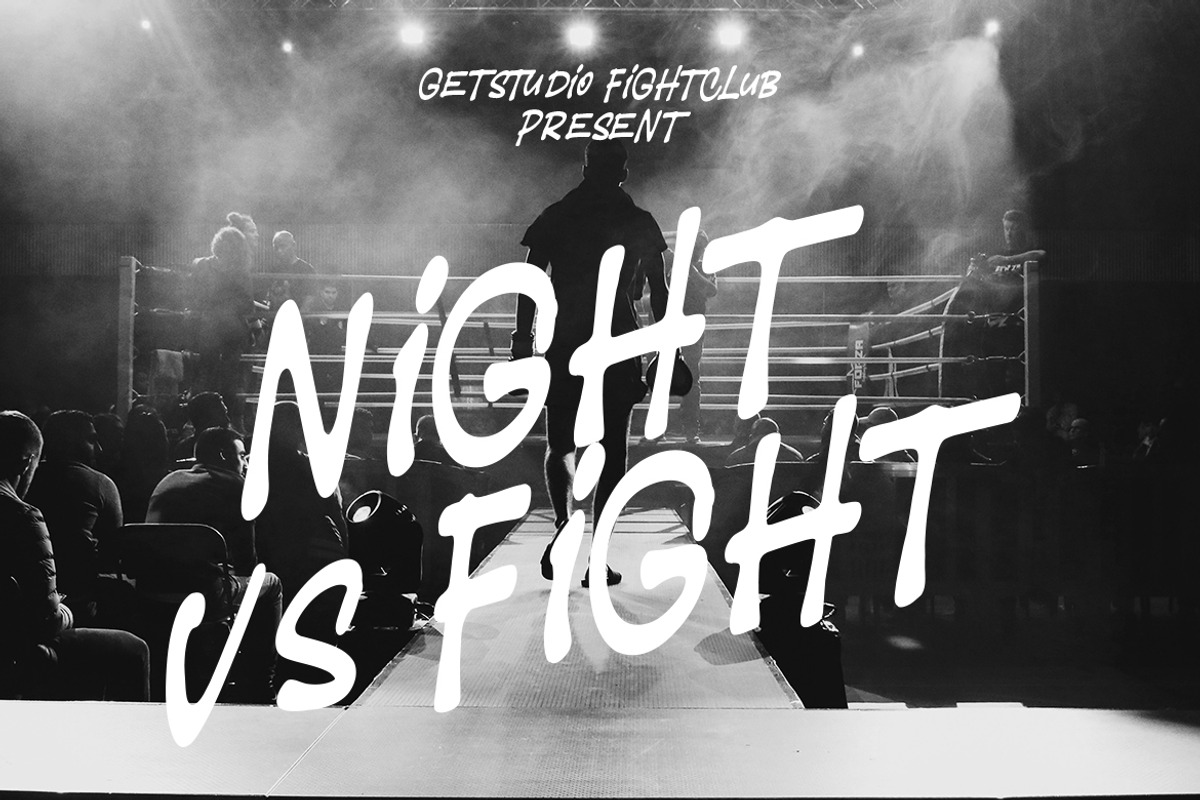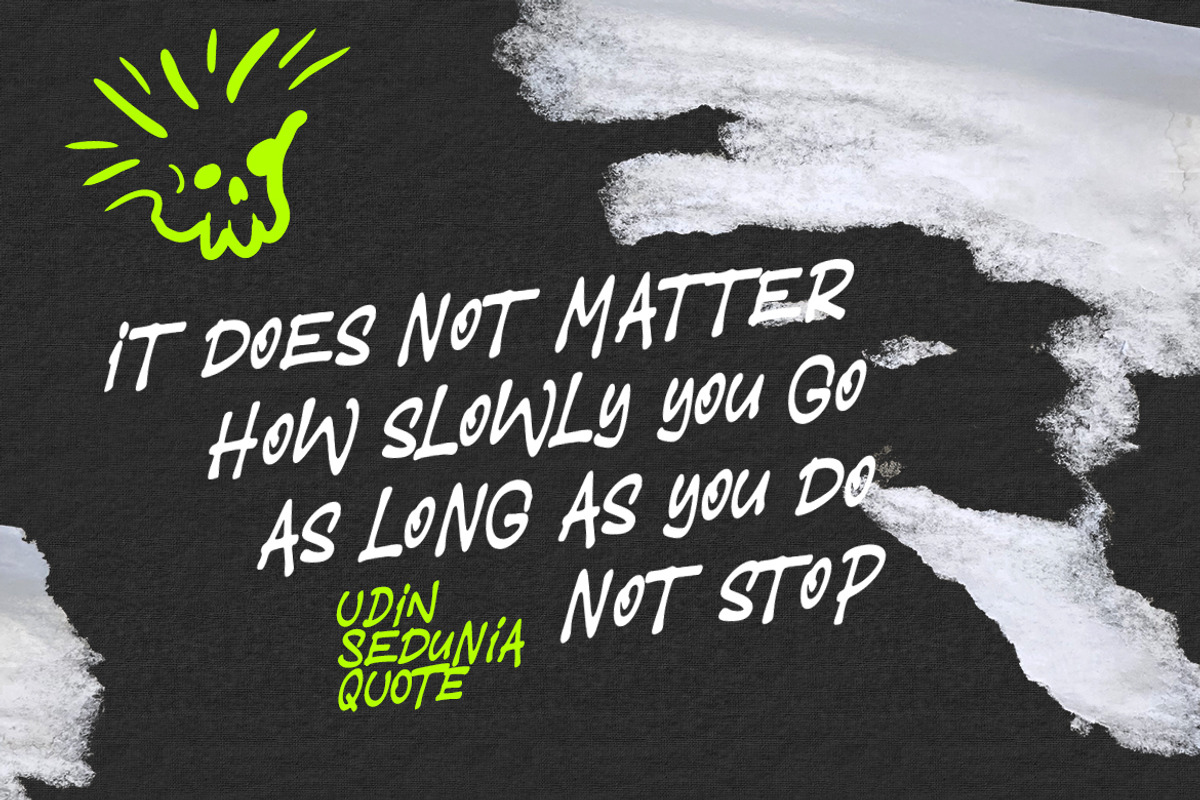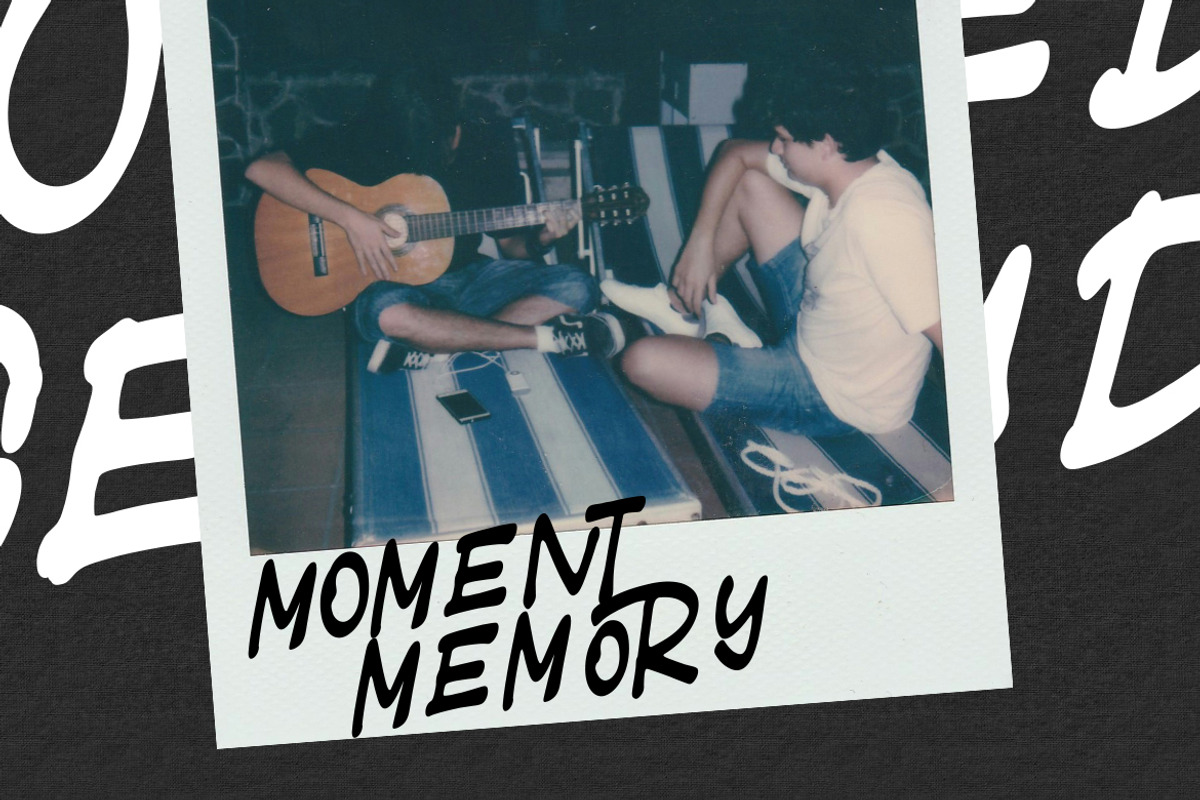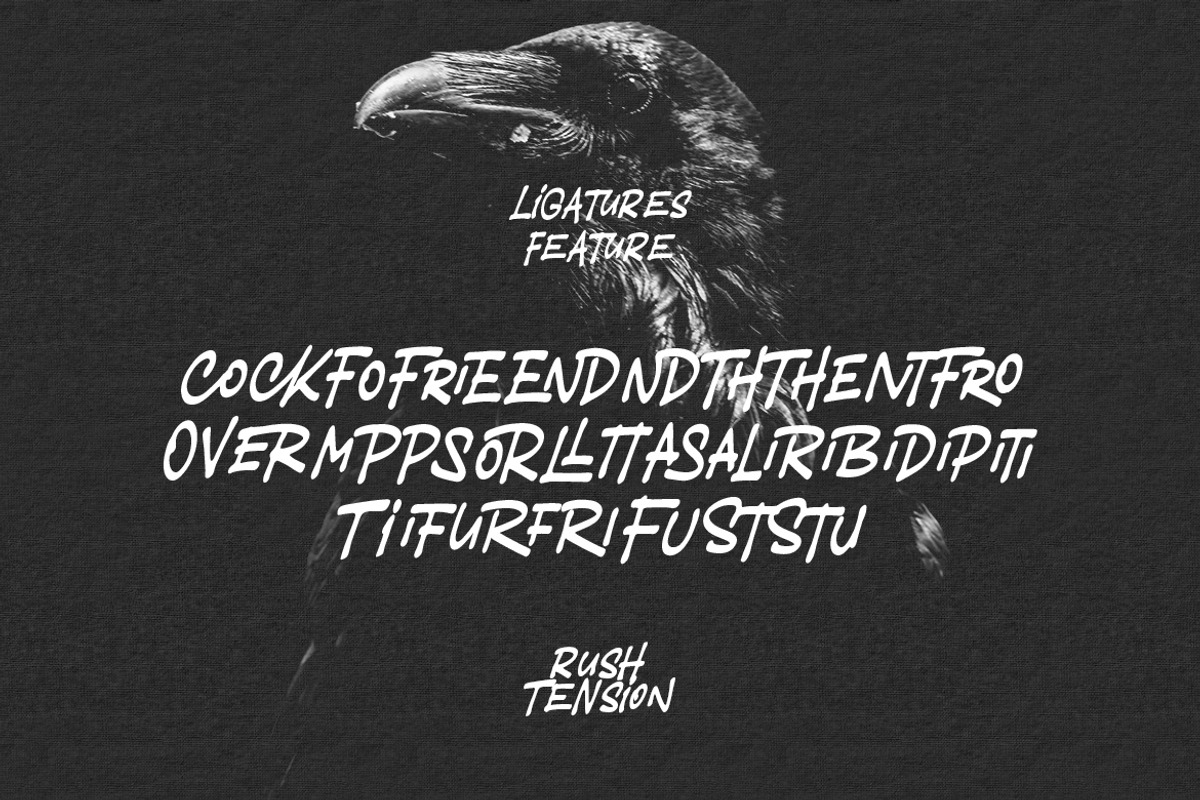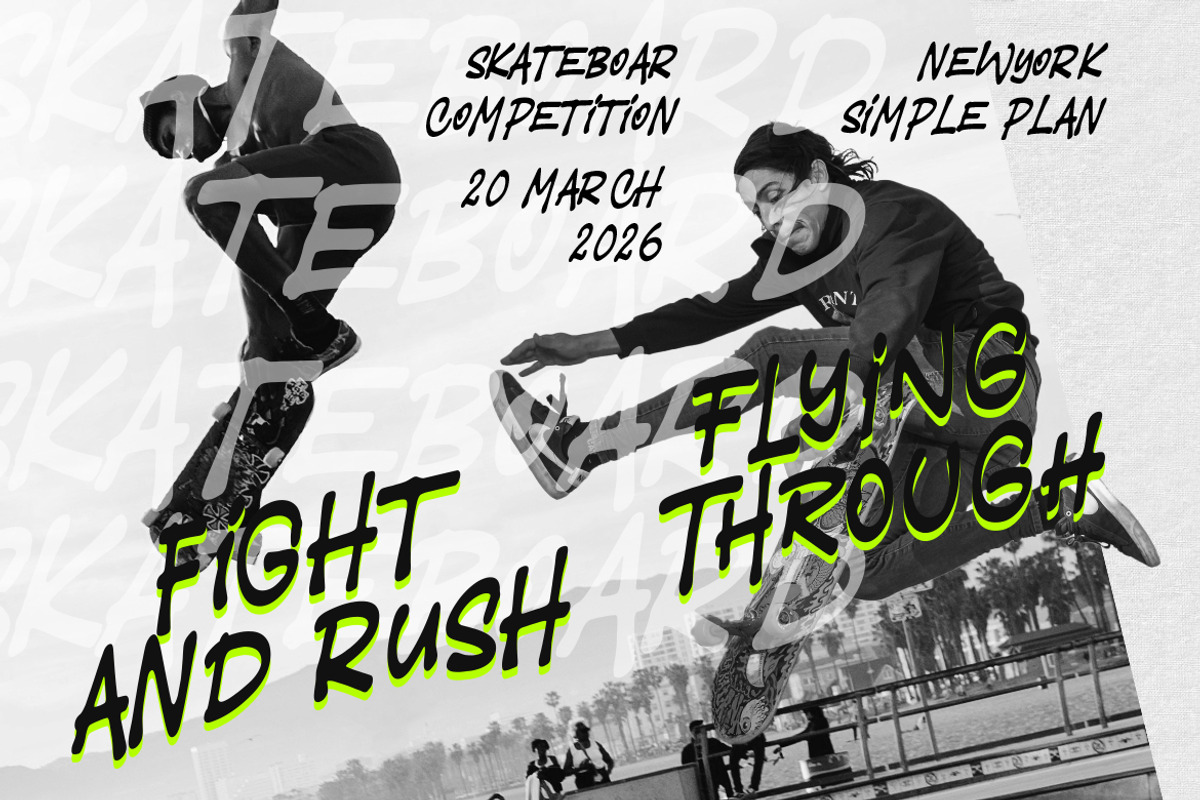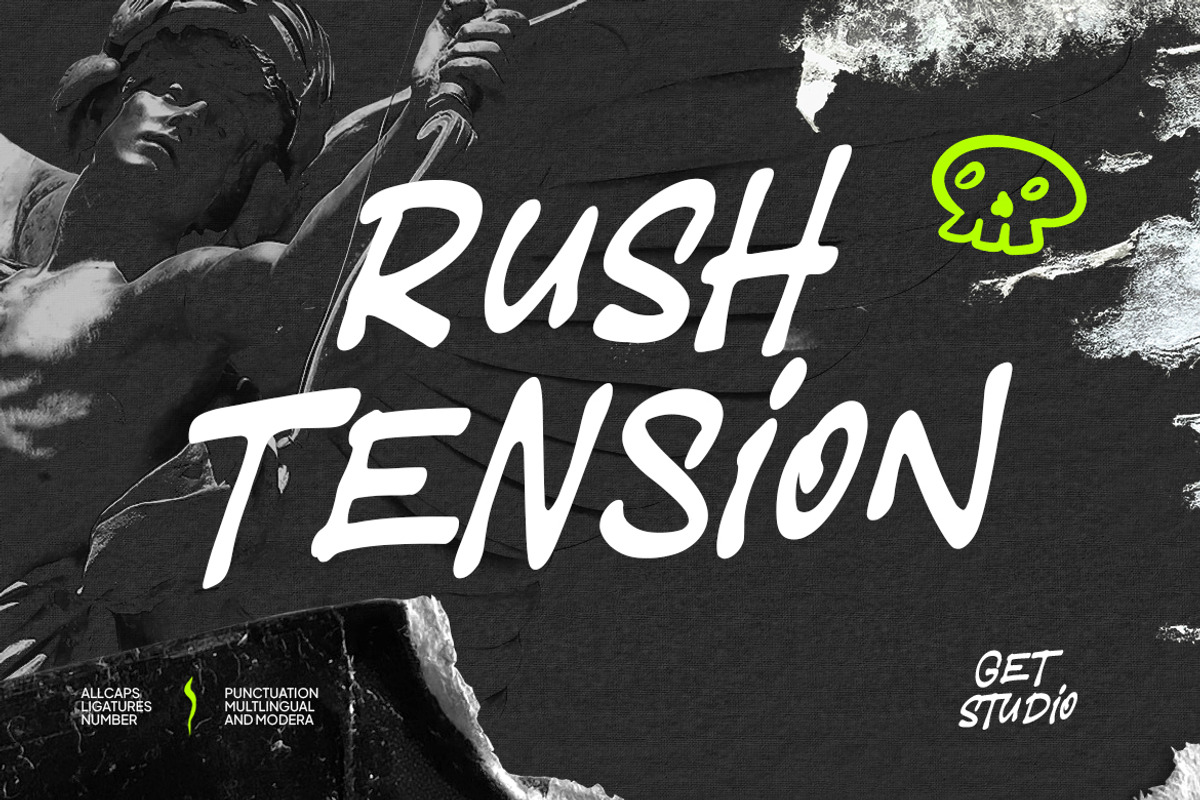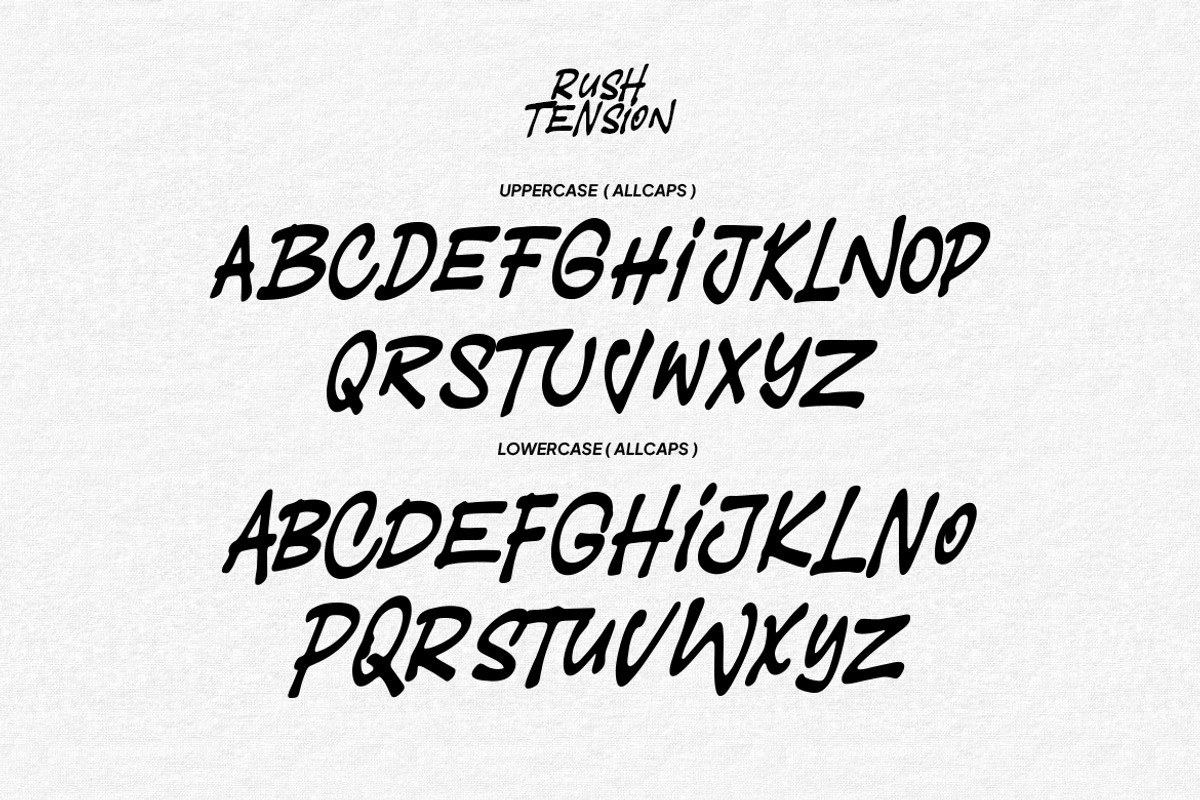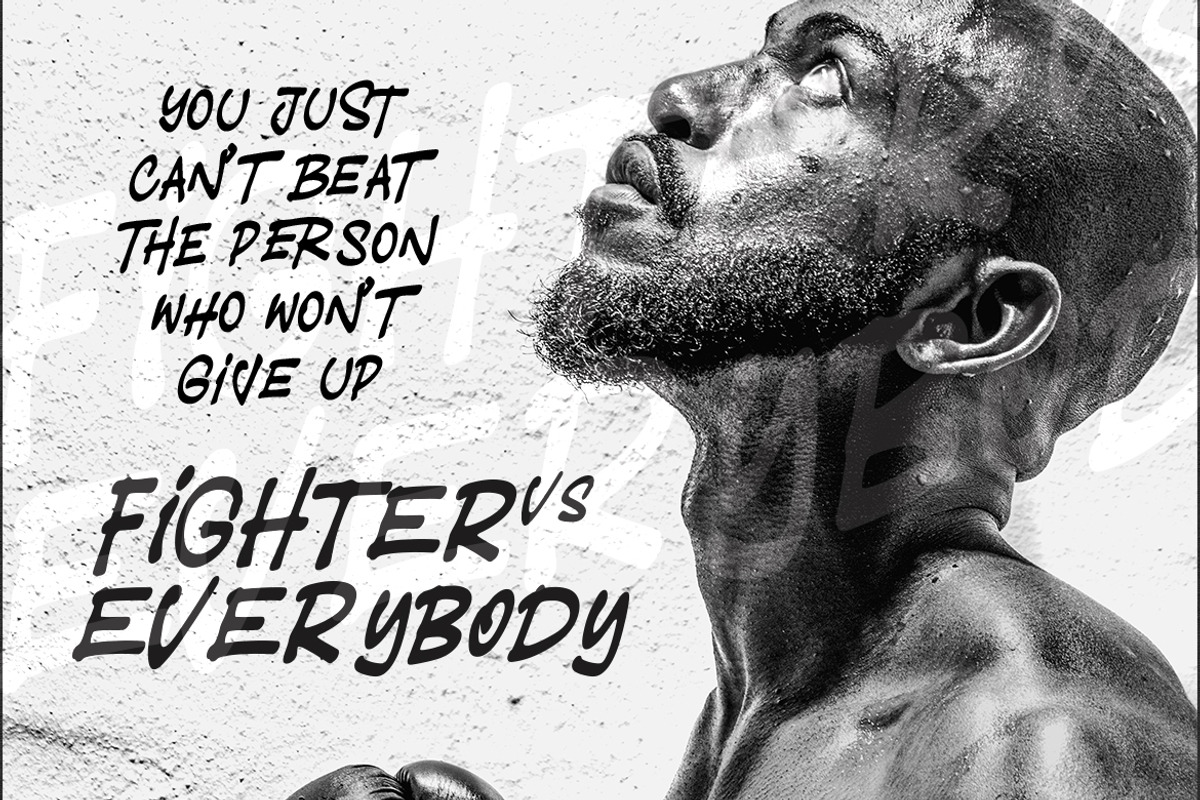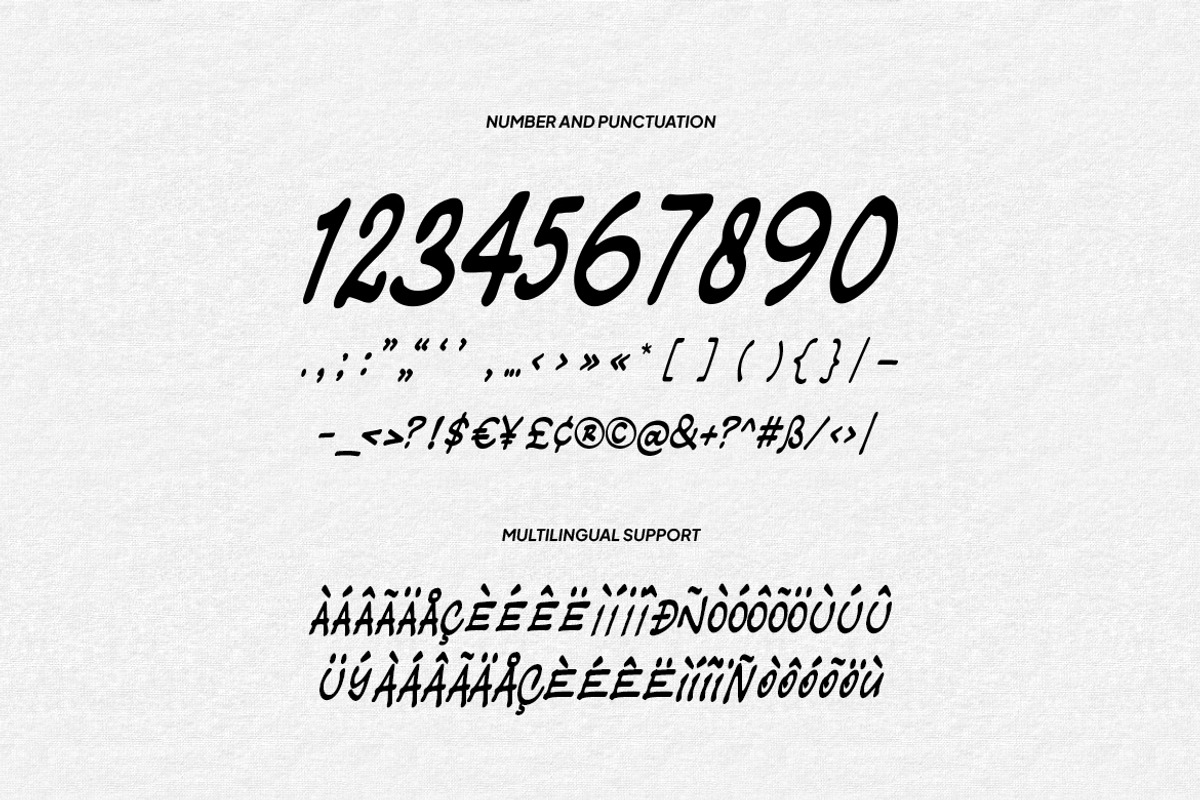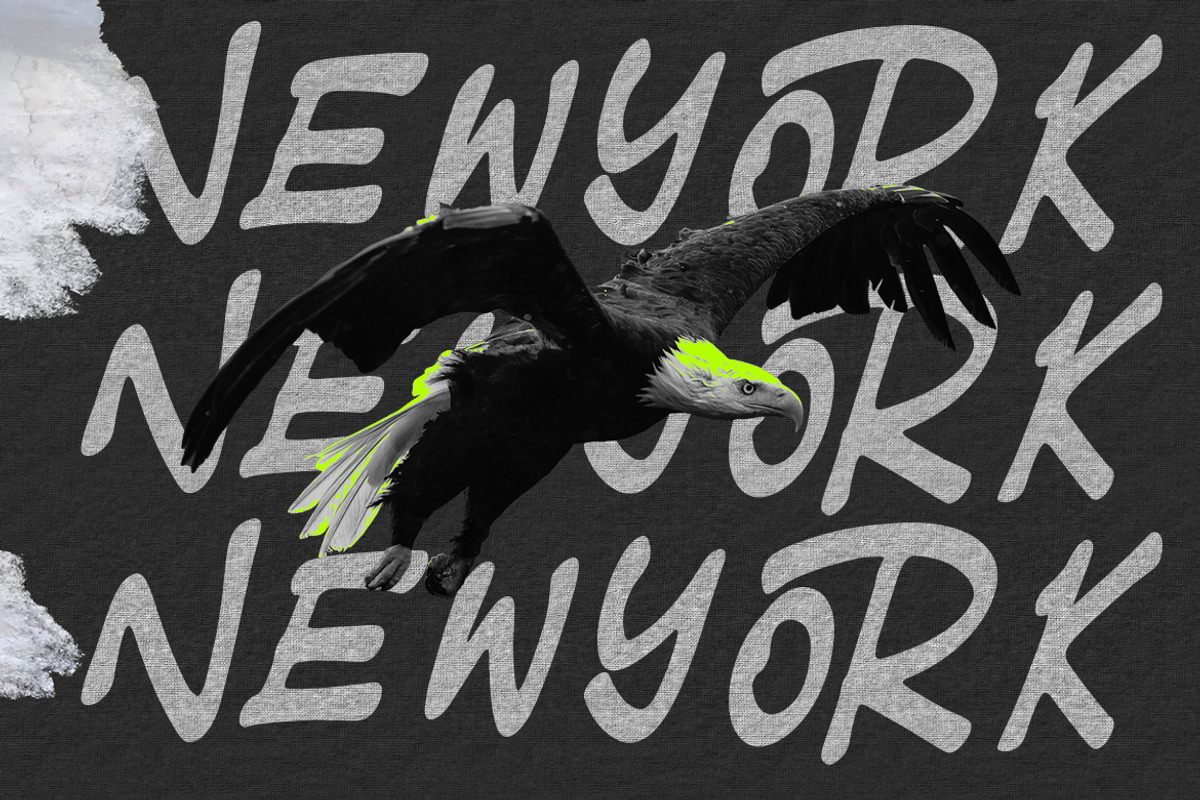
Rush Tension – Brush Display Font
Rush Tension captures the intensity of motion—where speed, rhythm, and control come together in every stroke. Crafted with expressive brush details and a natural hand-drawn flow, this font delivers a strong and confident presence without losing its organic feel.
Designed for high-impact visuals, Rush Tension works perfectly for sports branding, streetwear, posters, music artwork, and bold social media content. Its lively rhythm and energetic style make every word feel active, engaging, and full of momentum.
Whether you’re building a modern urban brand or creating visuals that need movement and attitude, Rush Tension brings a powerful and expressive touch to your design.
- Uppercase & Lowercase Letters designed as alternate capital forms